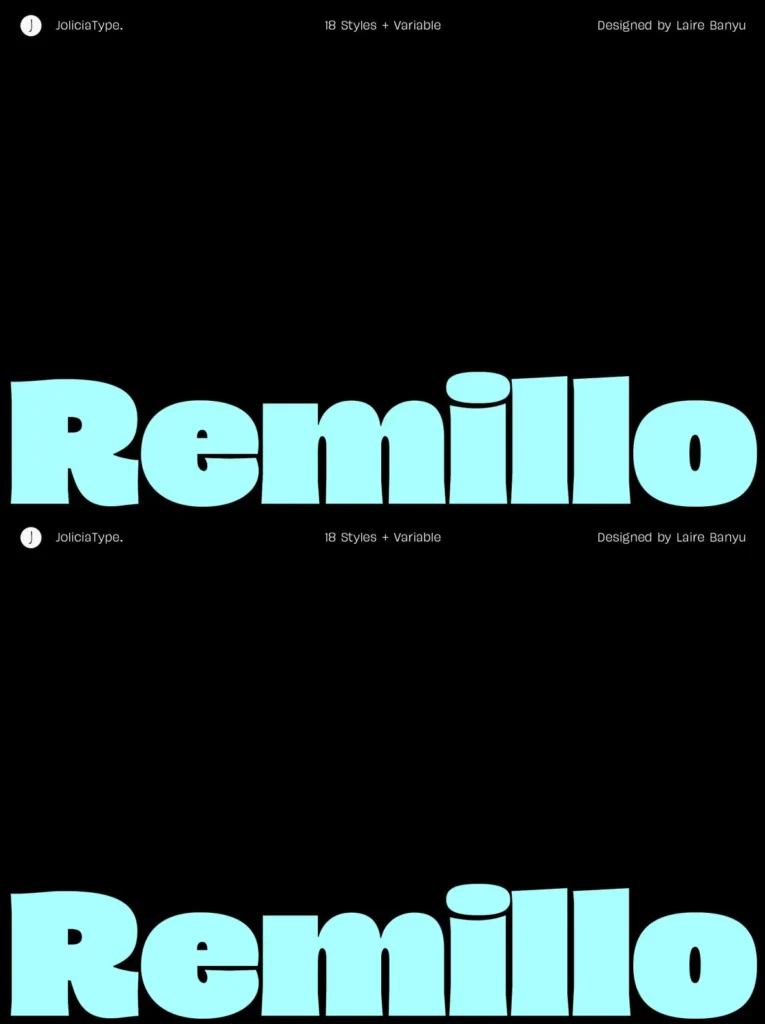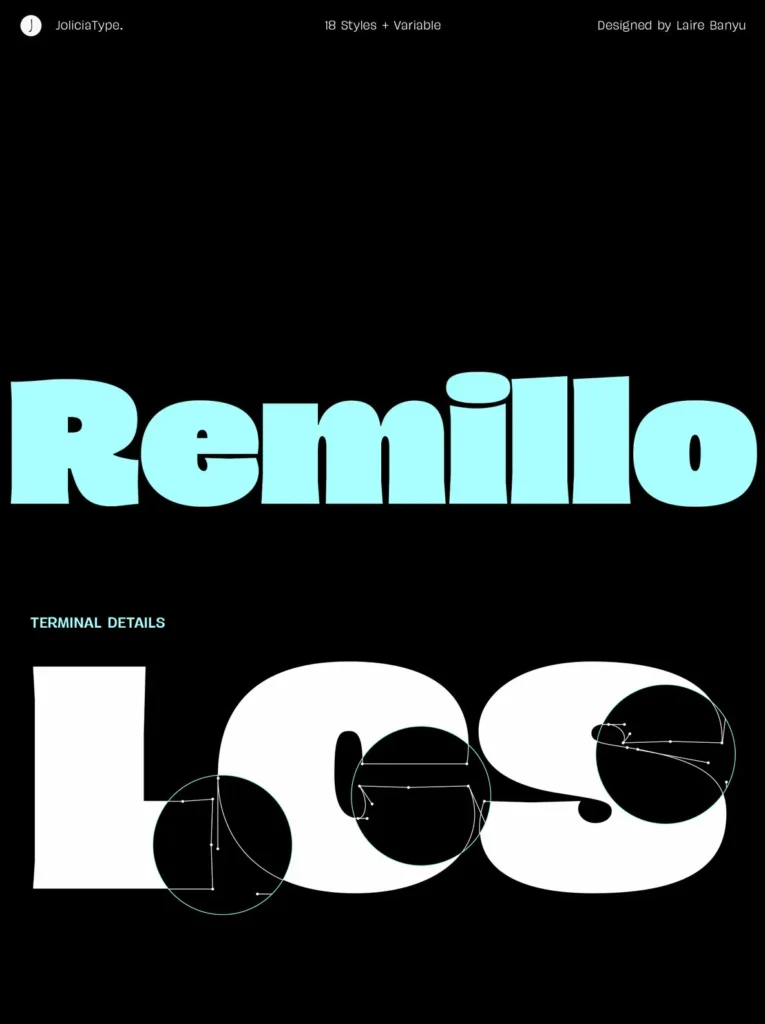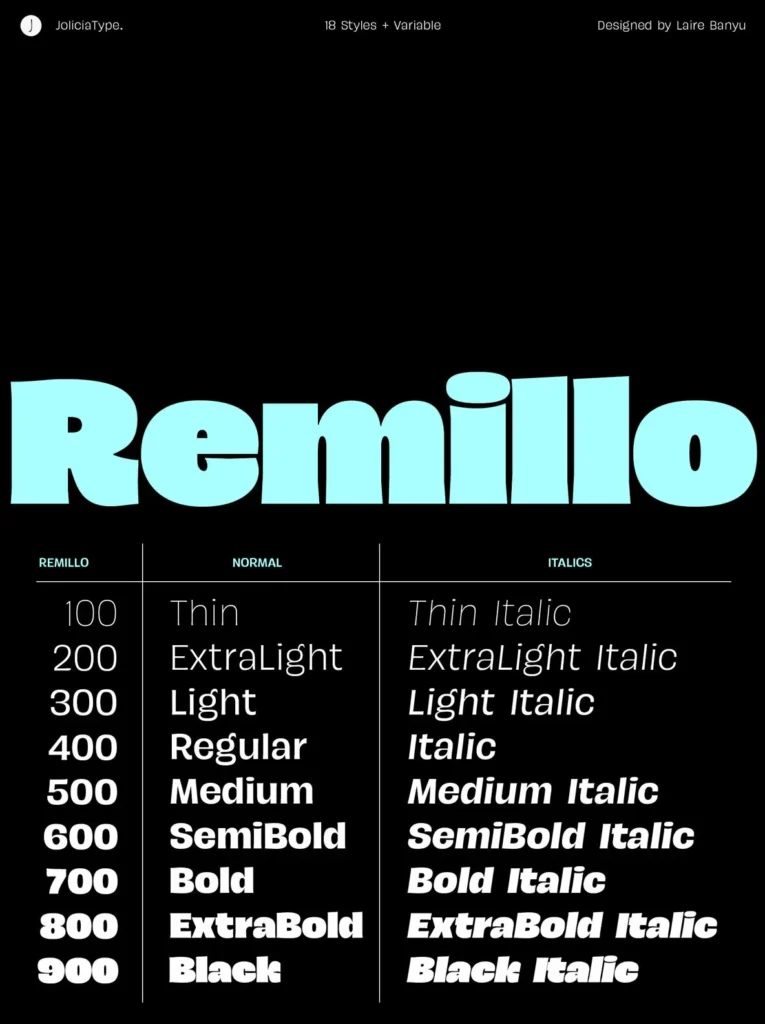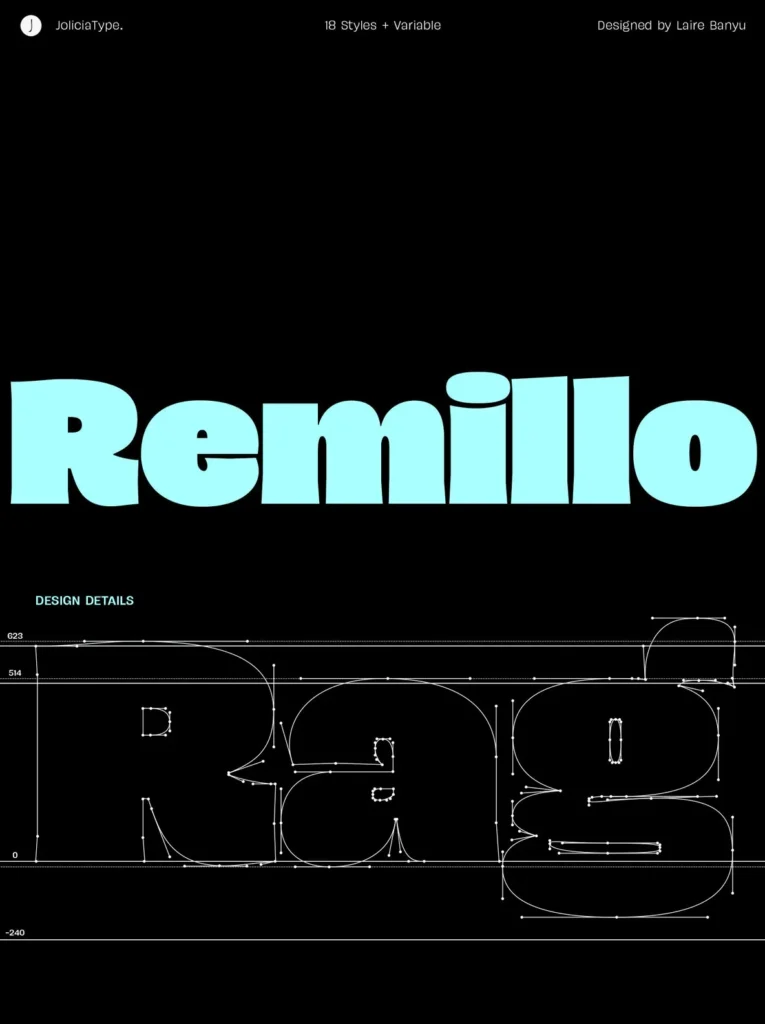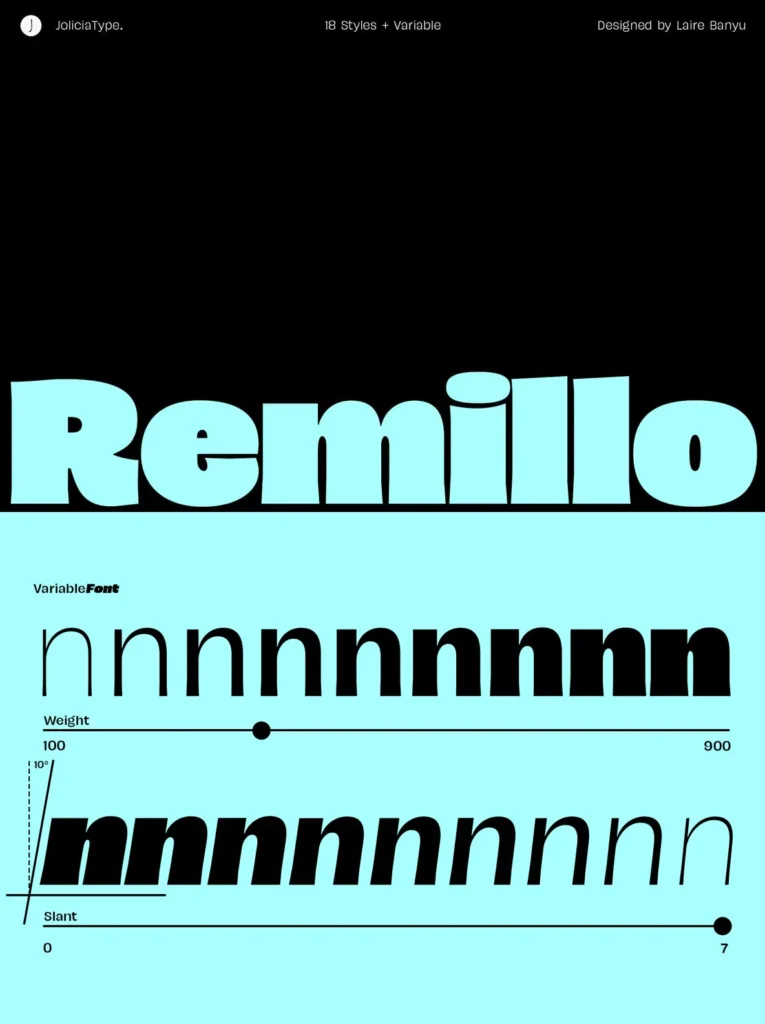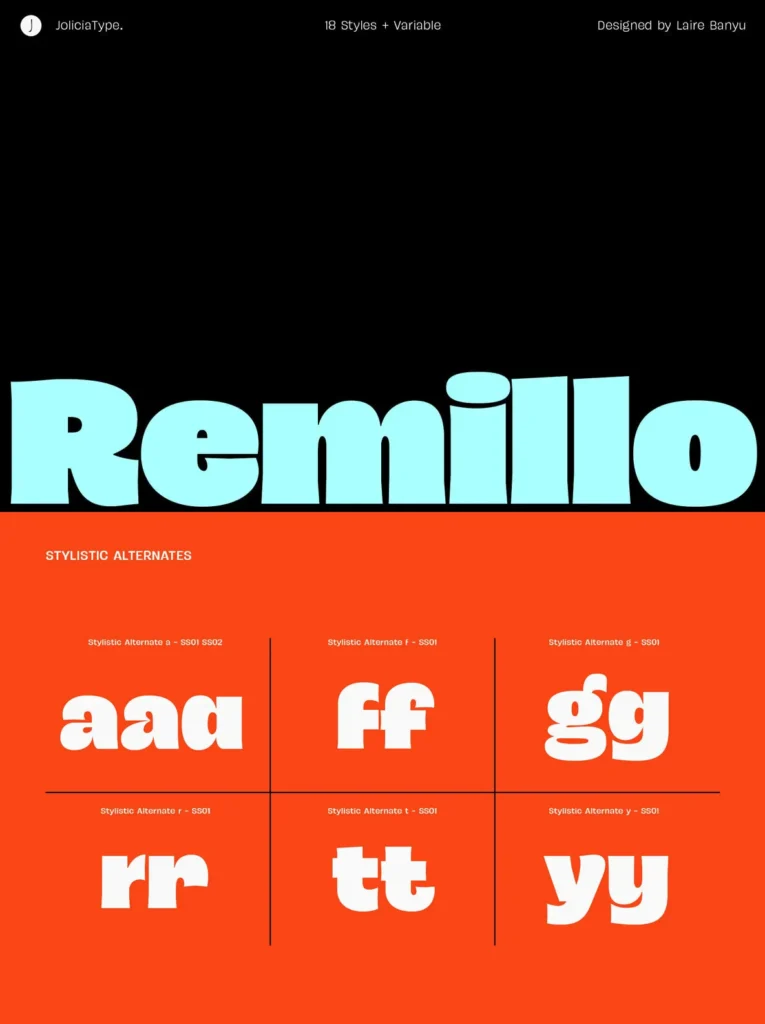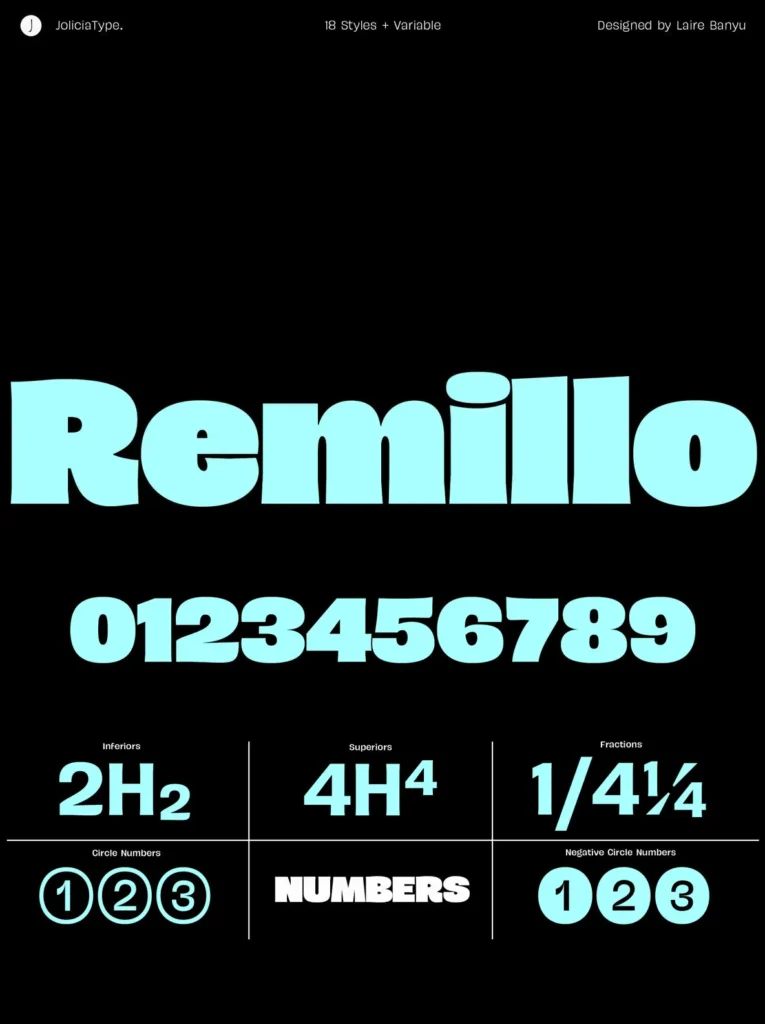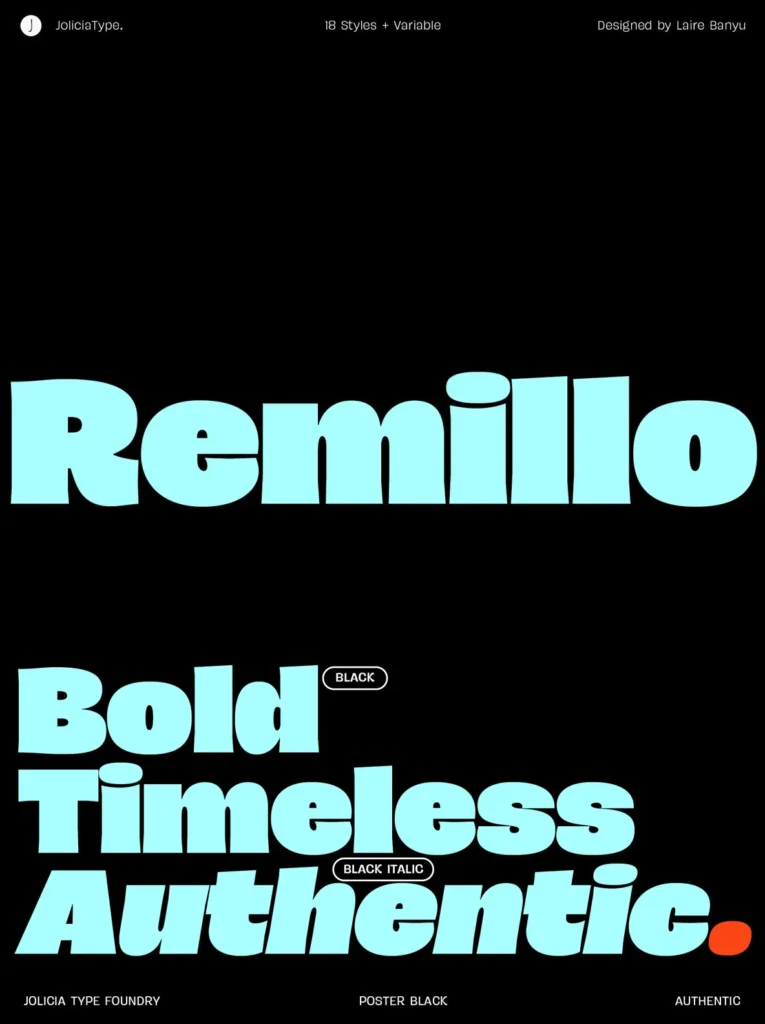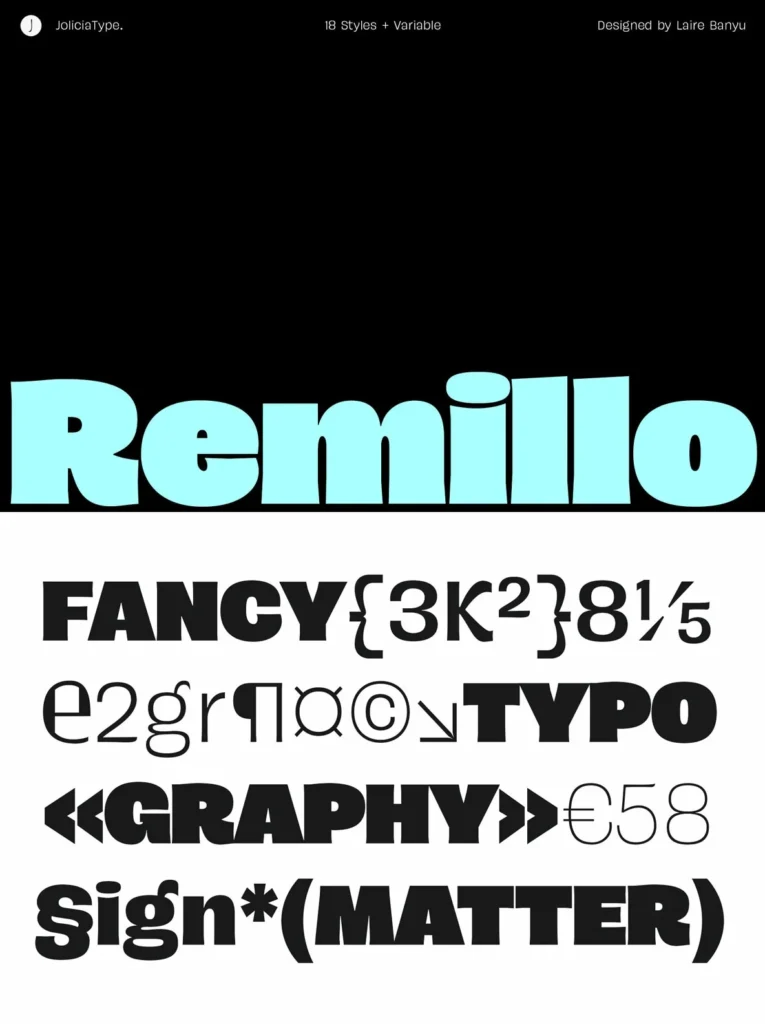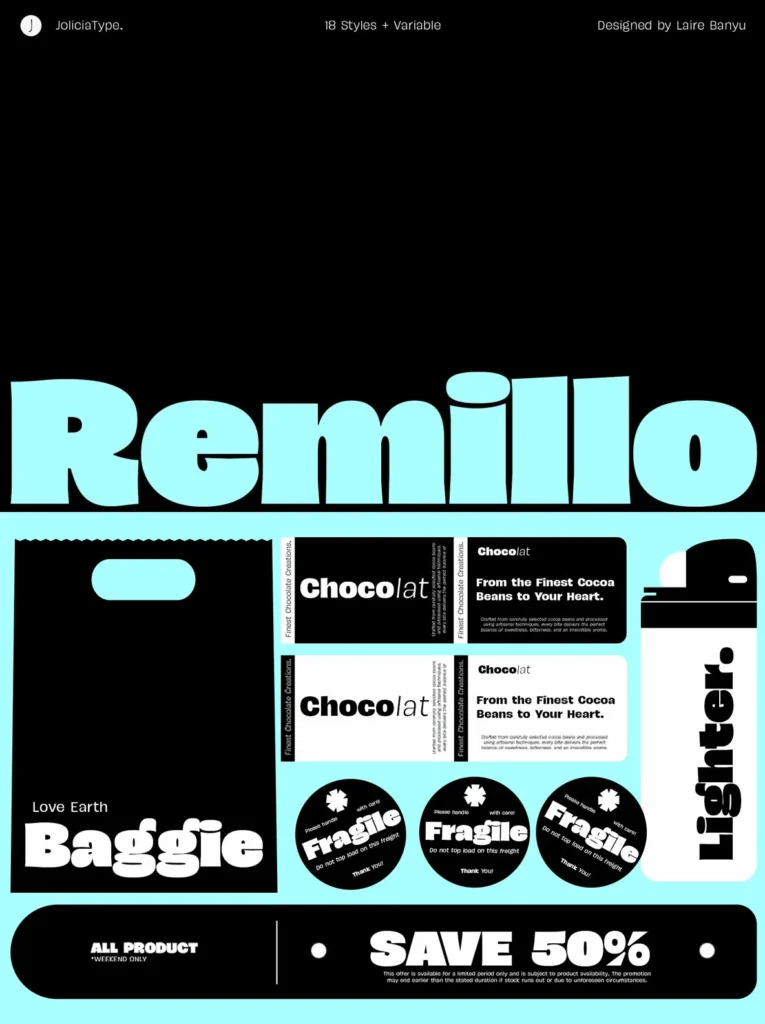
JT Remillo Font
JT Remillo: Humanist clarity with warmth
Designed by Jolicia Type, this humanist sans-serif typeface blends organic elegance with high readability. Its proportions and letterforms keep text clear at small sizes while still feeling refined in display settings. Use it for brand systems that need a contemporary voice with a humanist tone, or for editorial typography where legibility matters.
JT Remillo includes a total of 18 styles plus 1 variable font. It comes in Upright and Italic versions, with a 10-degree slant that adds motion without sacrificing clarity. The Black style is well suited to headings, with a bold, strong presence that holds attention across print and digital work. Fit it to branding, editorial design, and digital interfaces.